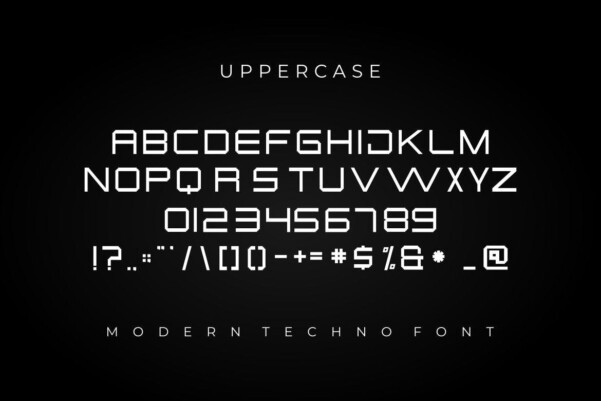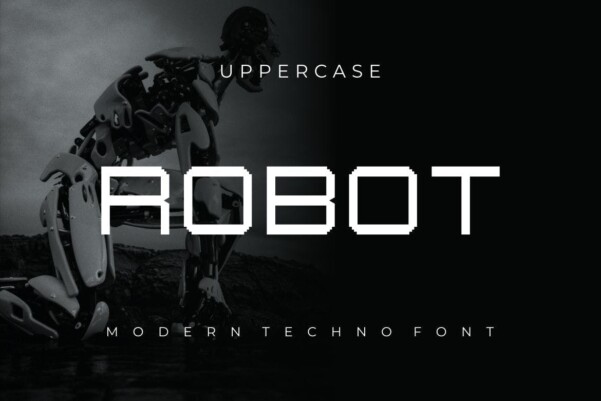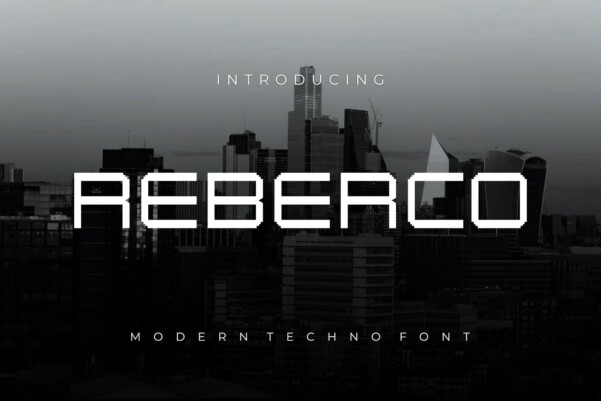
Reberco Font
Designer: albert_kalingga
Reberco Font – Modern Font is a bold and authentic display font. The font is suitable for all branding projects such as Logo, esports, etc. It is exceptional in a wide range of contexts